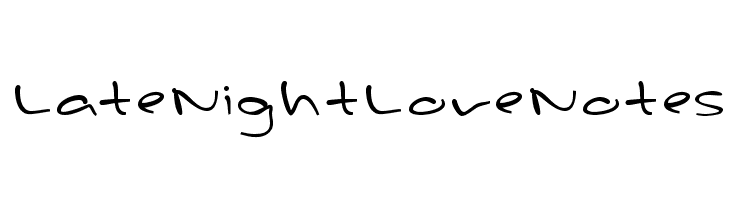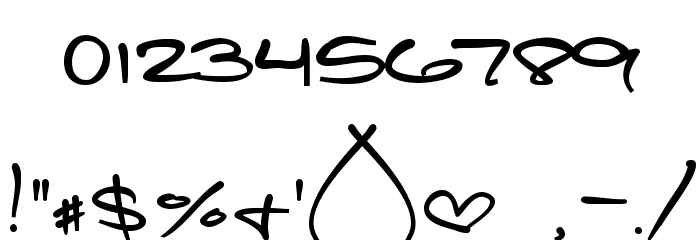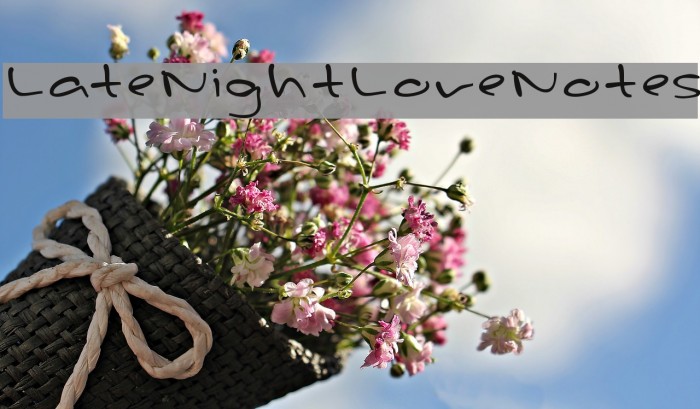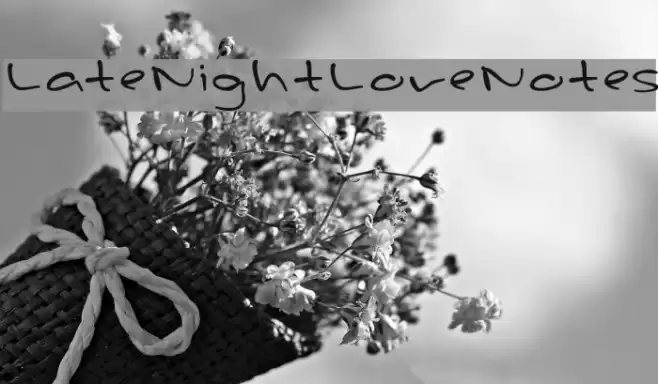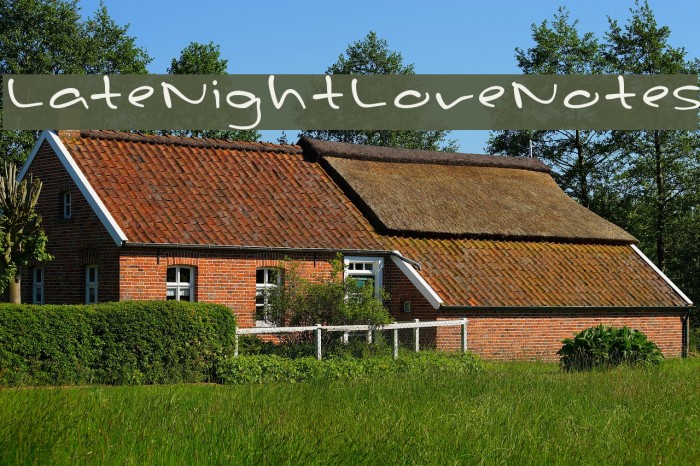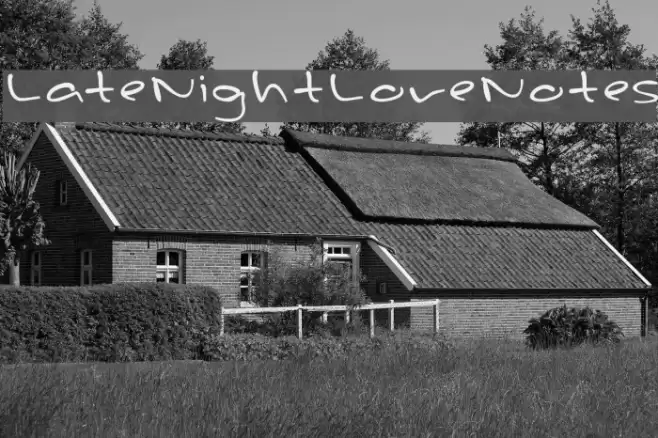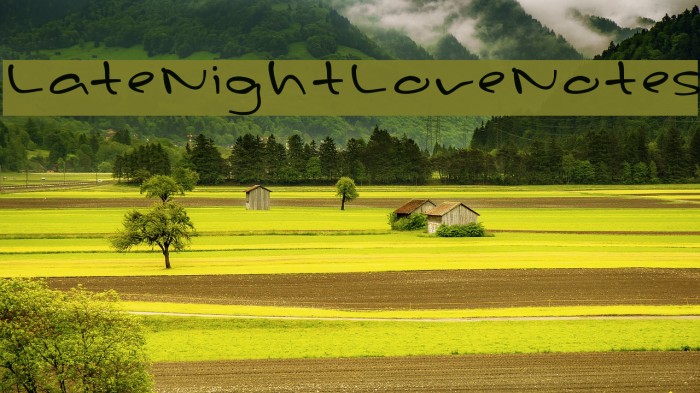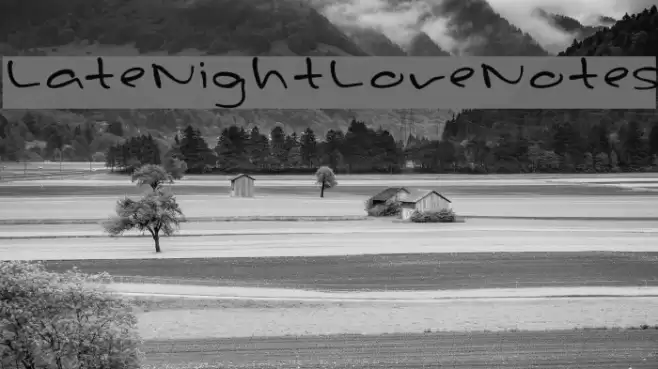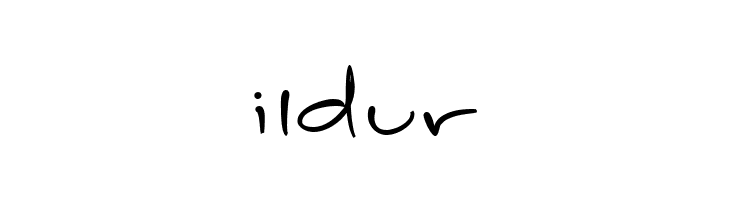
LateNightLoveNotes Font
LateNightLoveNotes Description
This playful and casual handwritten font exudes a sense of spontaneity and warmth. The letters are crafted with a smooth, flowing style that mimics natural handwriting, making it ideal for conveying a personal touch. Each character is slightly irregular, adding to the authentic handwritten feel. The uppercase and lowercase letters maintain a consistent style, with rounded edges and a slight slant that enhances the informal appearance. Numbers and special characters are equally expressive, featuring the same fluid strokes and whimsical design. This font is perfect for projects that require a friendly and approachable aesthetic.
| Overall Style | Casual, Playful |
| Use Case | Headlines, Informal text, Personal notes |
| Proposed Projects | Greeting cards, personal notes, casual invitations, social media graphics, and children's book illustrations. |